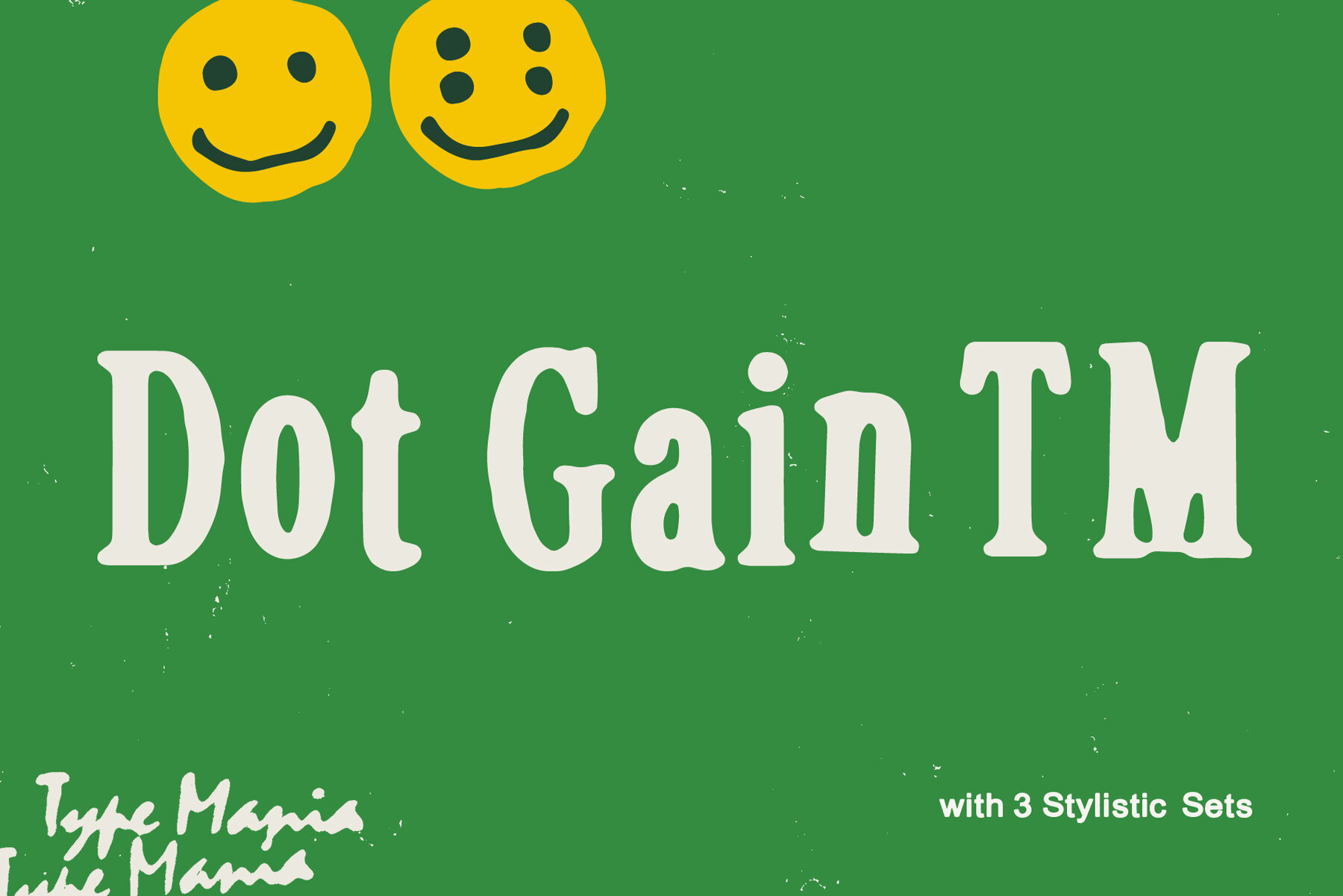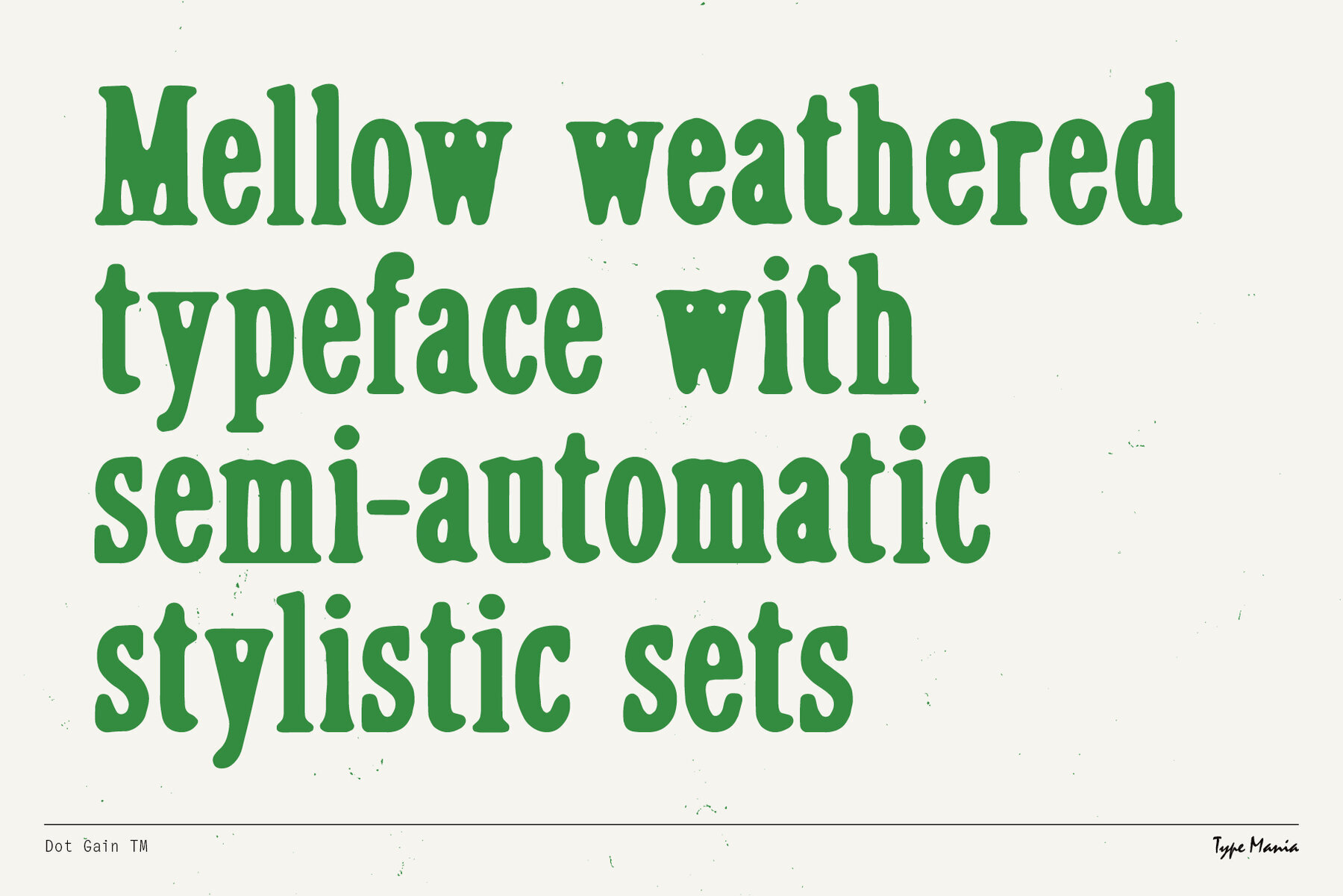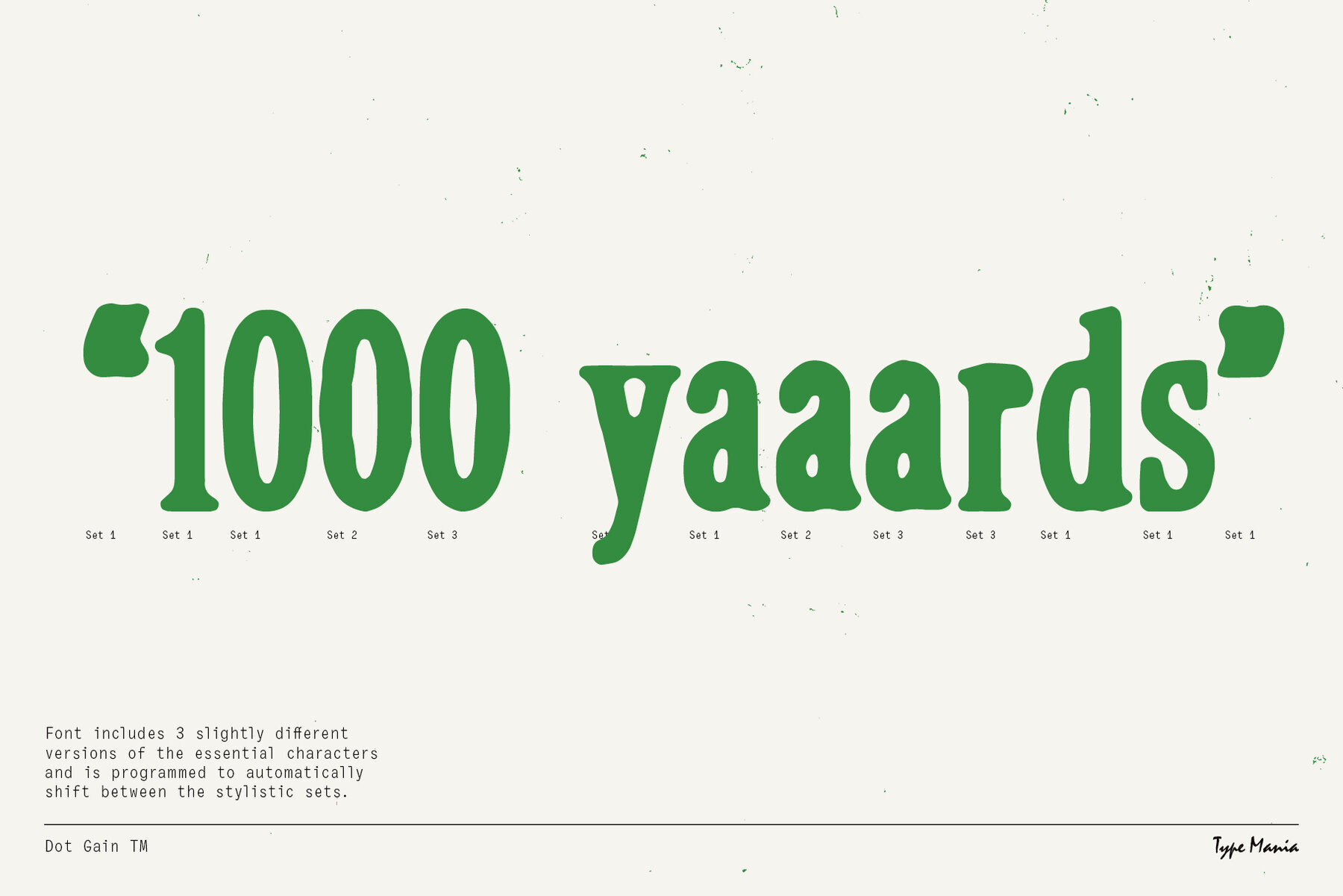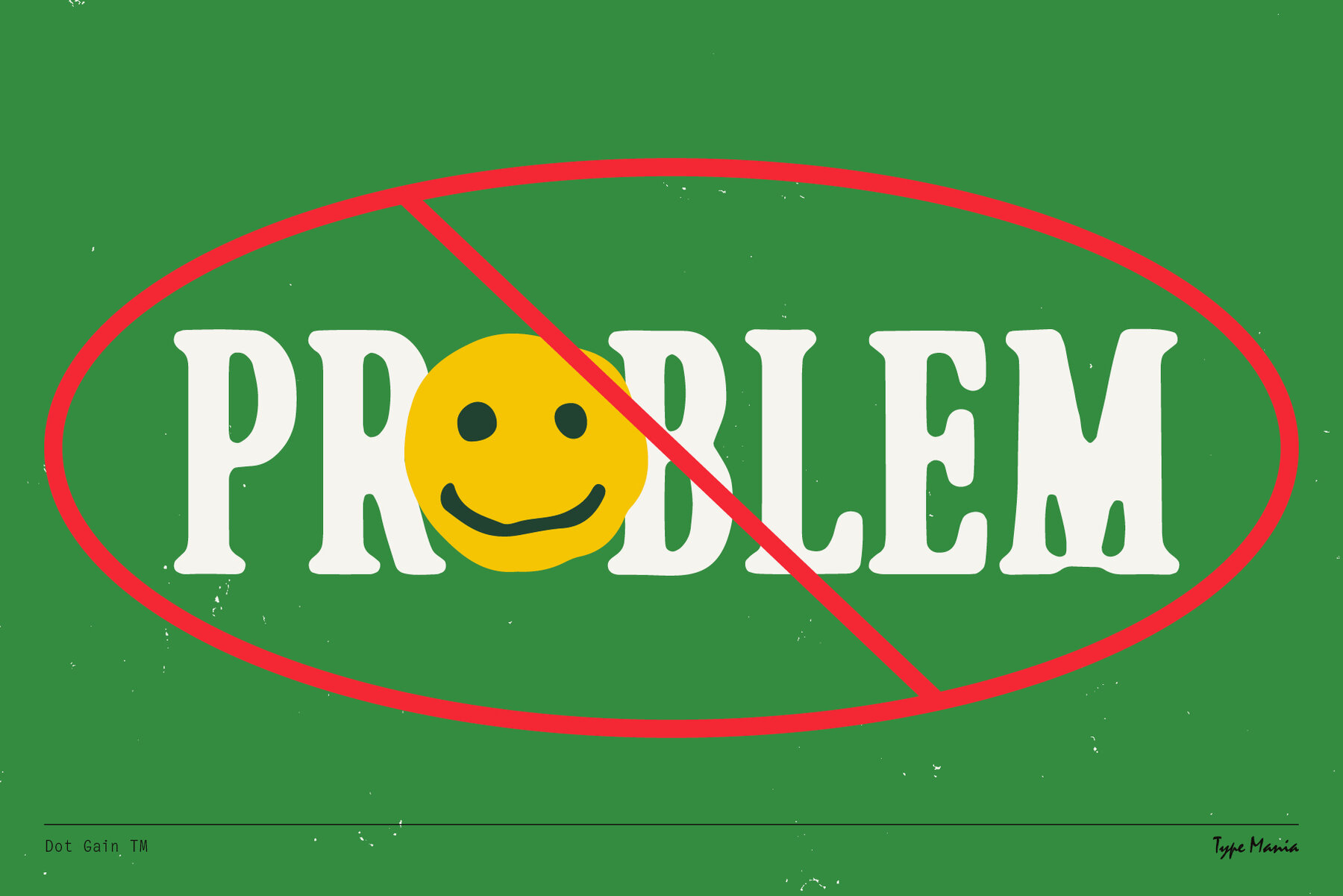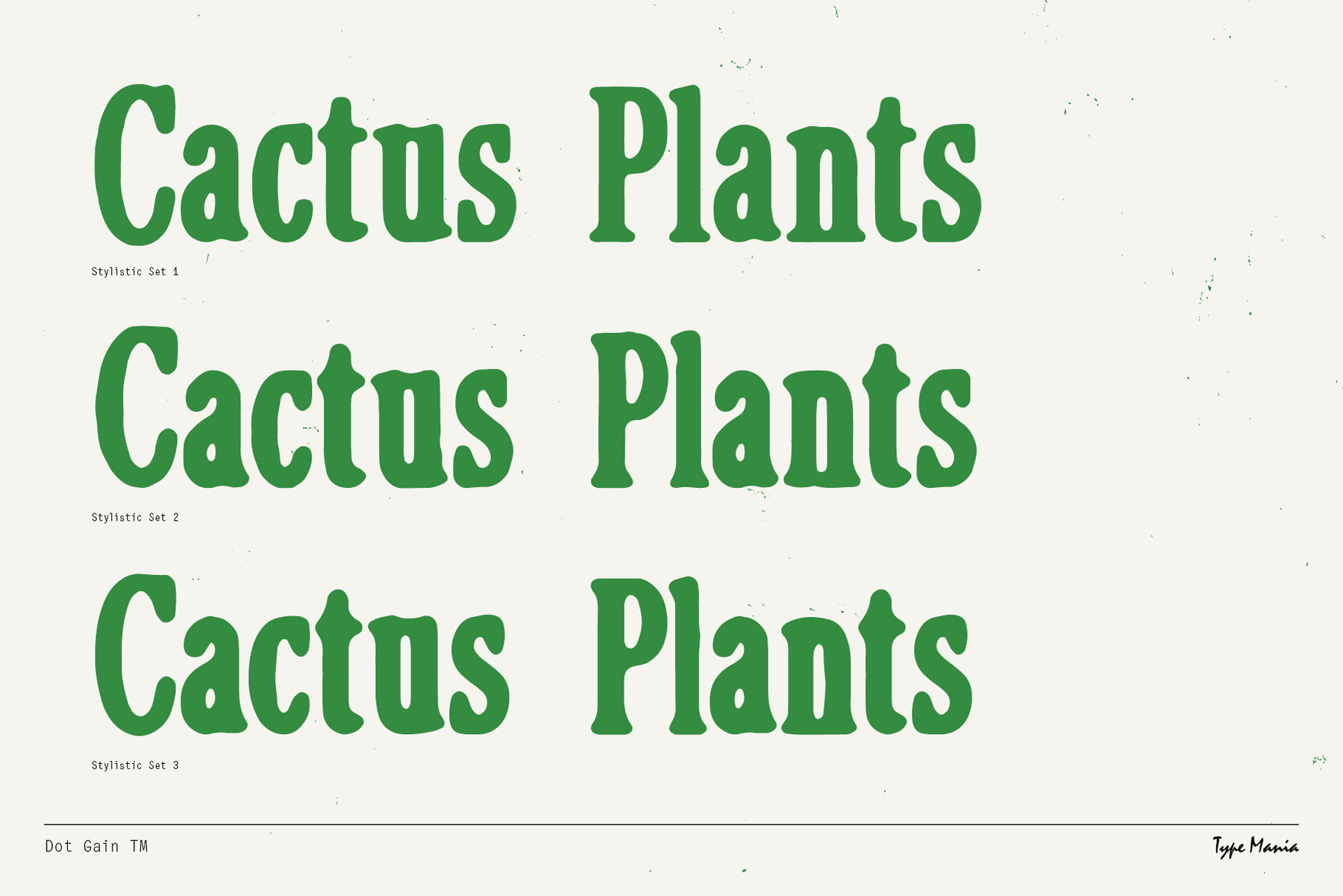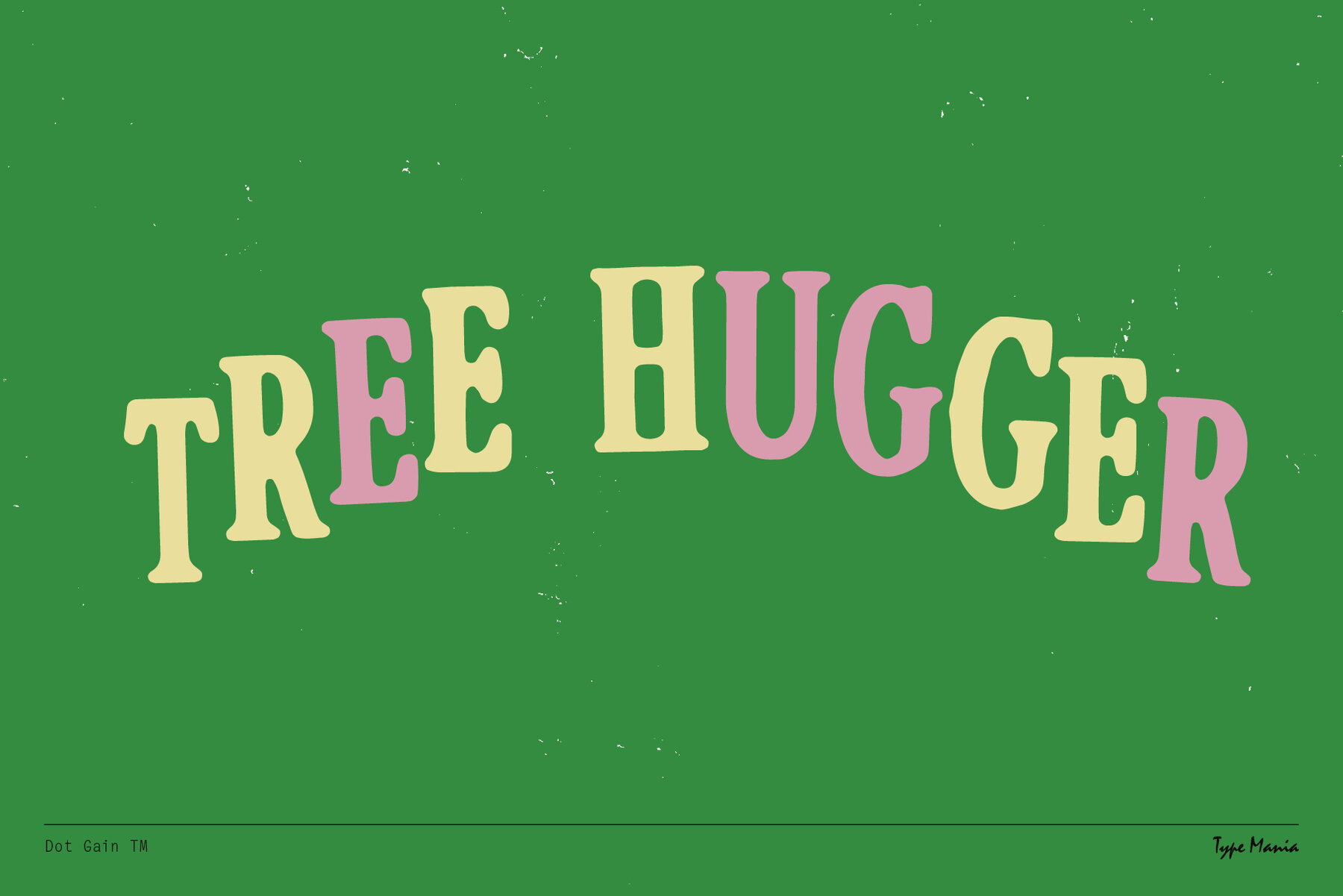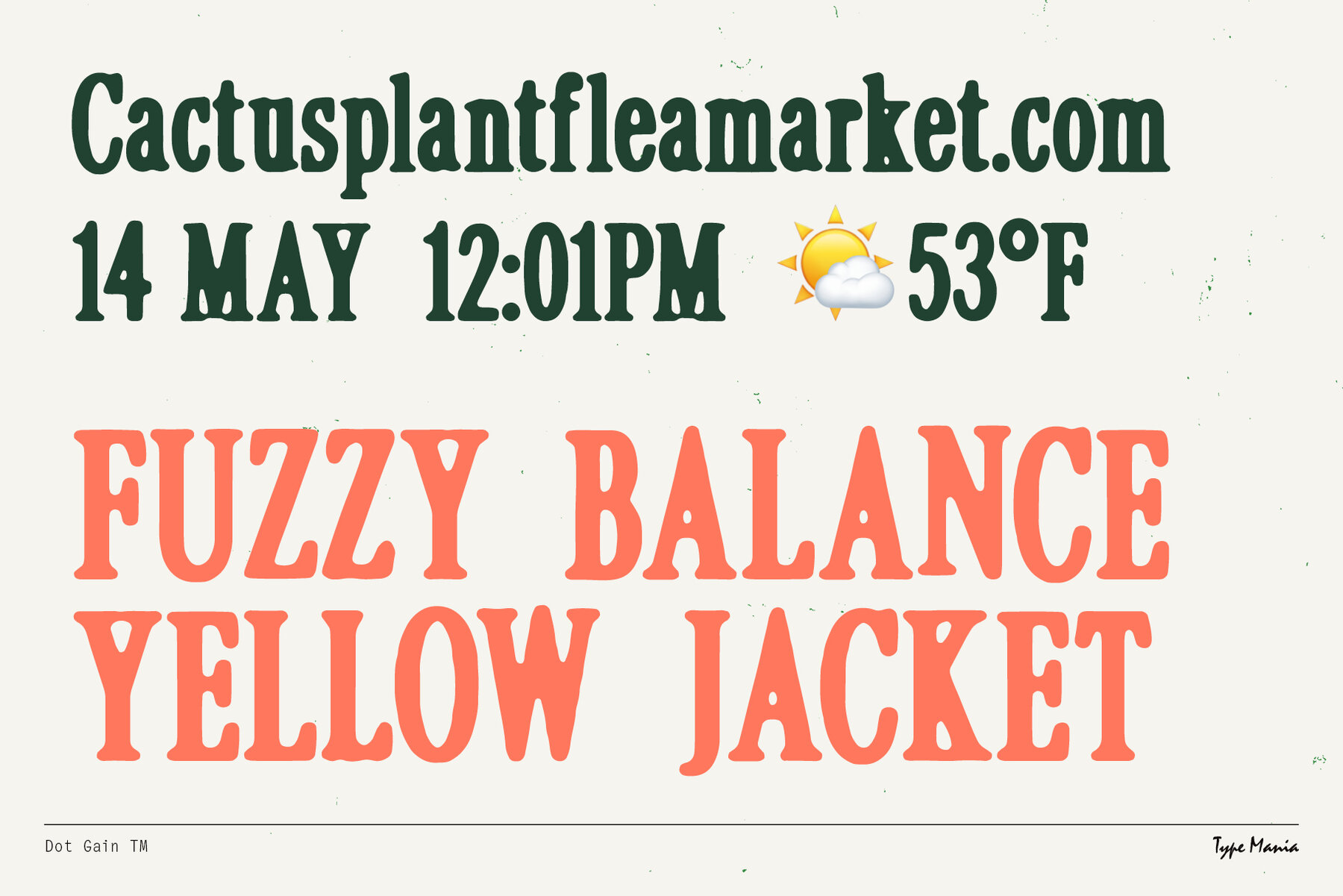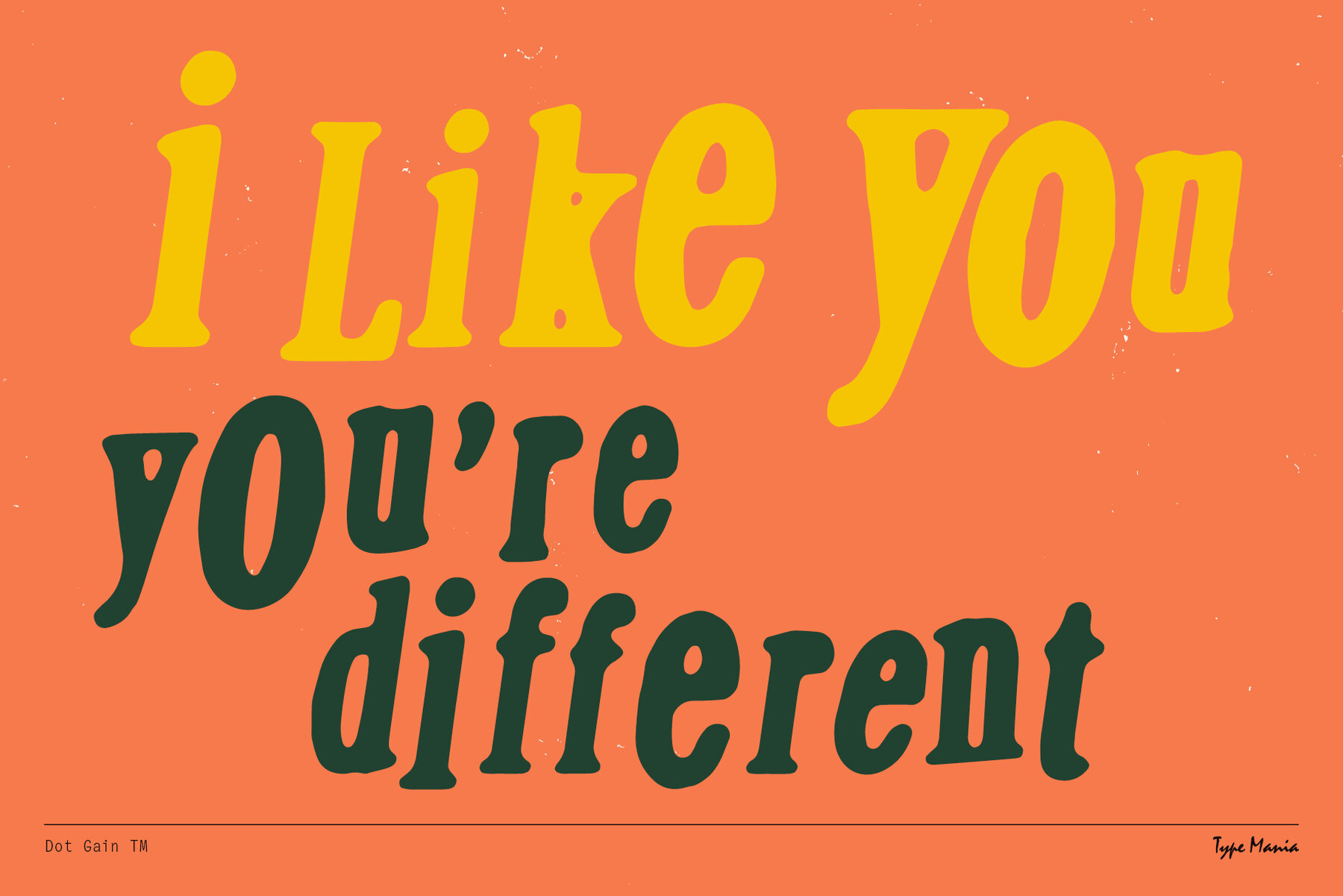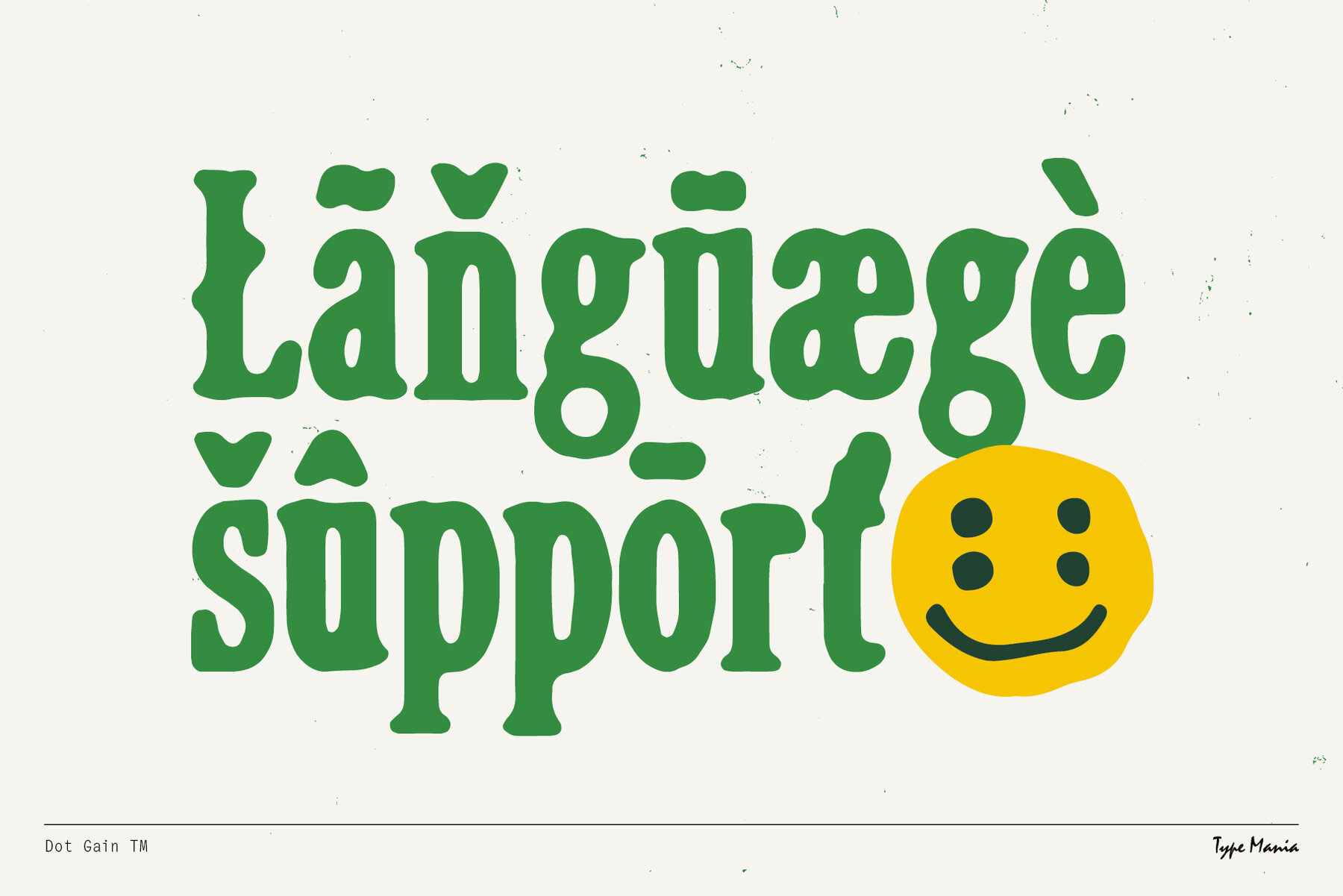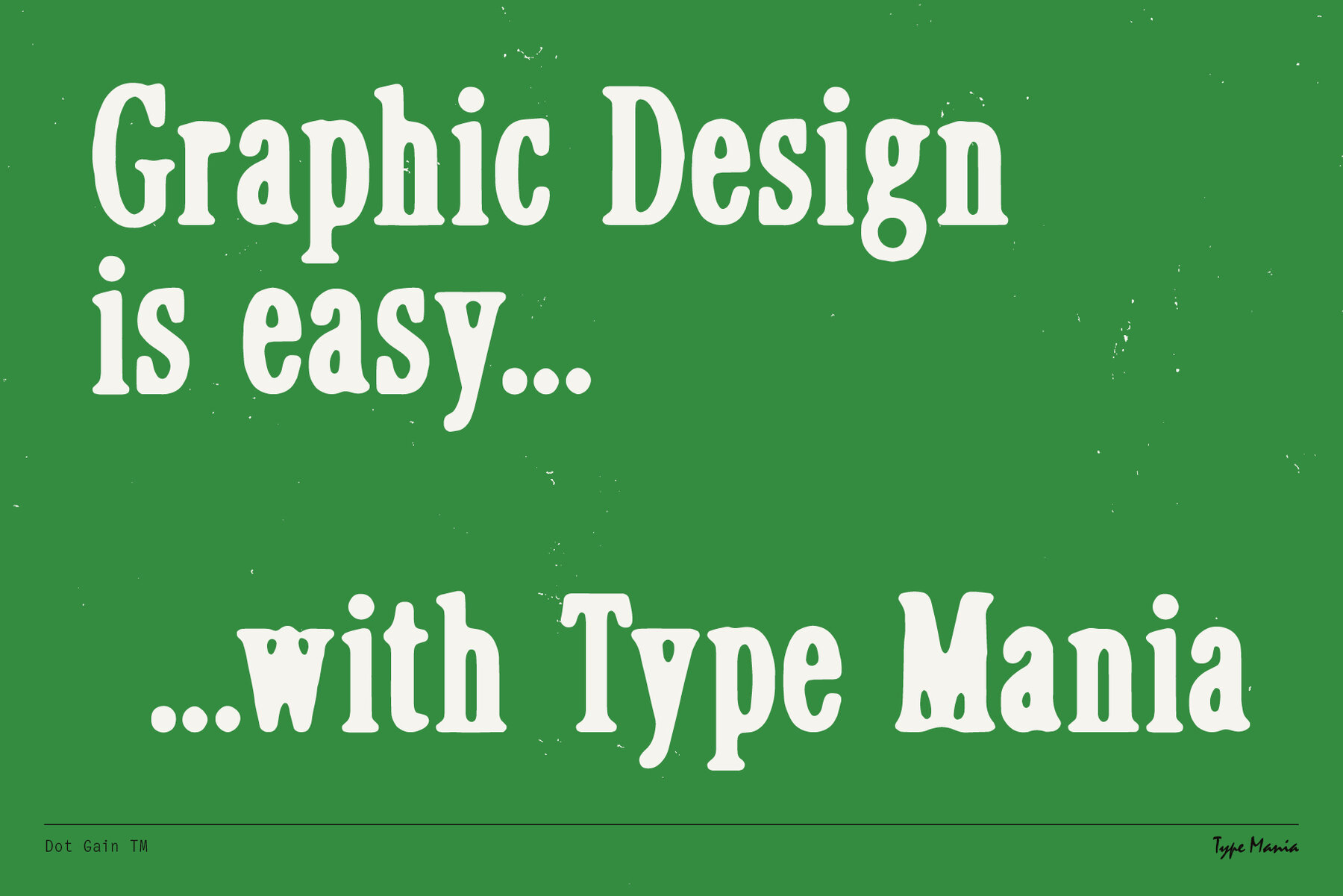
Dot Gain TM Font
Dot Gain TM Regular
Get cozy with Dot Gain TM. Inspired by the gentle imperfections of yesteryears' printing presses, Dot Gain TM captures the essence of a bygone era with its scruffy appearance, yet remains unmistakably contemporary, offering a nod to the past with a modern twist (–‿♥) OpenType features